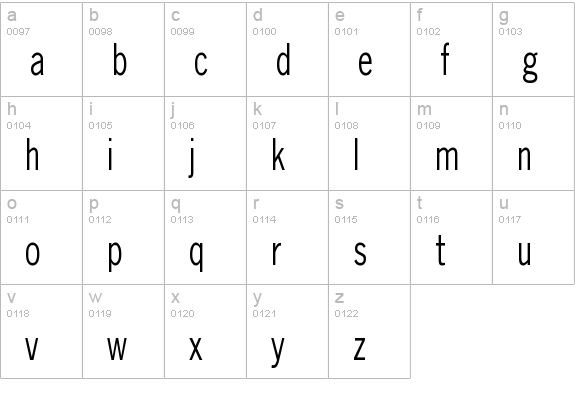
NewsGothic Cn is a modern and versatile font that combines elegance with readability. With its clean lines and sharp edges, this typeface is perfect for a wide range of design applications, from editorial layouts to branding and packaging. The condensed style of NewsGothic Cn allows for efficient use of space without sacrificing legibility, making it an ideal choice for projects that require a sleek and sophisticated look. What makes NewsGothic Cn even more appealing is that it is available for free download at FontsMarket.com. This means that designers and creatives can easily access this high-quality font without any cost, making it a valuable addition to any font library. Whether you're working on a print publication, website design, or any other project that requires a professional and contemporary typeface, NewsGothic Cn is sure to elevate your work with its timeless style and versatility.